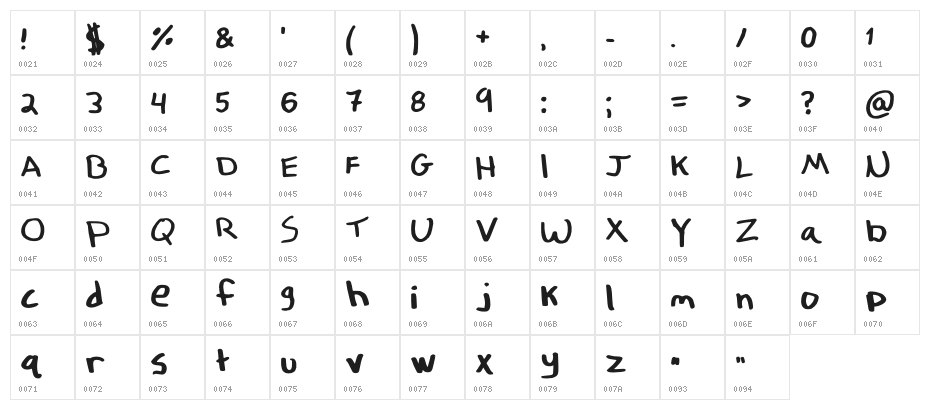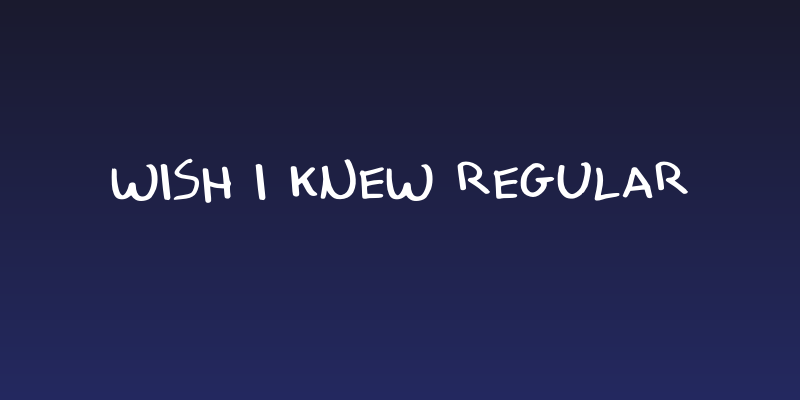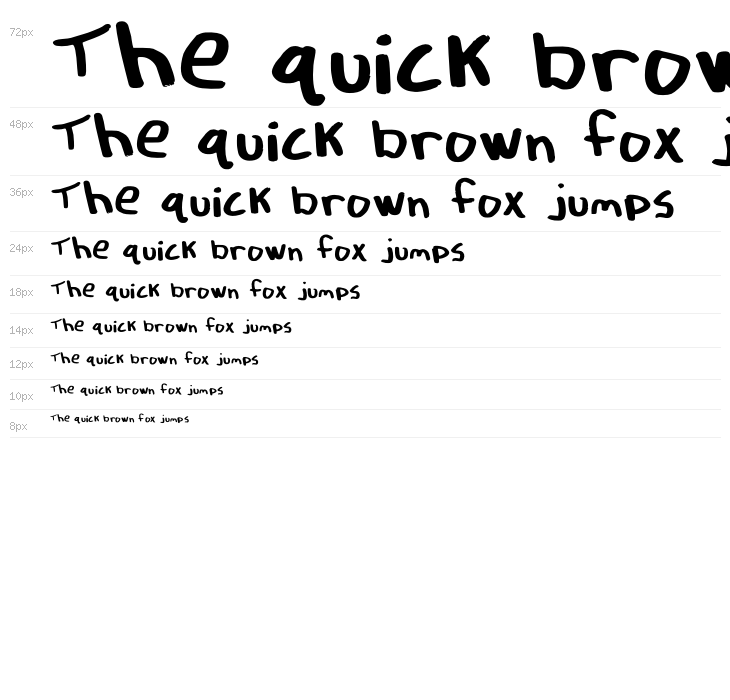
Wish I Knew Regular Font
Wish I Knew Regular Description
This font features a playful and informal handwritten style, characterized by its uneven strokes and casual appearance. The letters are slightly slanted, giving it a dynamic and lively feel. The uppercase letters are bold and prominent, while the lowercase letters maintain a consistent flow with rounded edges. Numbers and special characters follow the same informal style, making the font suitable for creative and fun projects. The overall design is approachable and friendly, ideal for conveying a sense of warmth and personality.
| Proposed Projects | Ideal for greeting cards, children's books, casual branding, and social media graphics. |